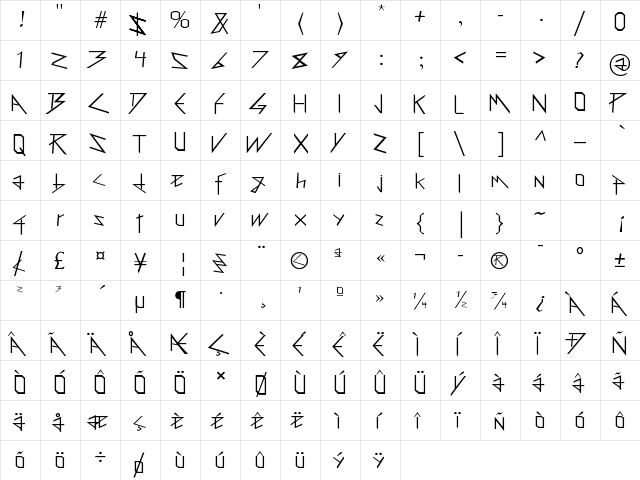
Holitter Forge Regular
| Designer | Biffe |
Design Context for Holitter Forge Typeface
Holitter Forge is a composed and adaptable typeface that performs quietly and consistently across a wide range of design contexts.